The TypeTogether story: chapter 2025
There are many ways to mark the passing of a year; friends and loved ones seen and sometimes lost, memories made, achievements and milestones achieved. But for a type foundry such as ours, the story of 2025 can be told in so many wonderful letterforms in so many scripts with so many wonderful people in so many places. We’re thankful for the opportunity to work with you and look forward to doing great things together in the new year.
New typefaces in 2025
2025 saw three major new type family releases: Futura®100, our reimagining of Paul Renner’s iconic geometric script in 12 global scripts; Poltik, Patrycja Walczak’s fun and funky reversed contrast sans serif family; and Sakkal Saad, Dr Mamoun Sakkal and Aida Sakkal’s friendly, handwritten Arabic Naskh family.
Futura®100
Futura®100 was a huge undertaking for TypeTogether working in partnership with Bauer Types, the owner of Renner’s original design and trademarks, involving more than 30 type designers, consultants, graphic designers and experts to create the first release of 12 global scripts: Arabic, Armenian, Cyrillic, Georgian, Greek, Hebrew, Khmer, Lao, Myanmar, Latin, PanAfrican Latin, and Thai. And this was just the first release – in 2026 we will release 11 additional scripts which will include support for major Indic scripts, as well as Simplified Chinese and Hangeul, covering more than 90% of the world’s population in total.
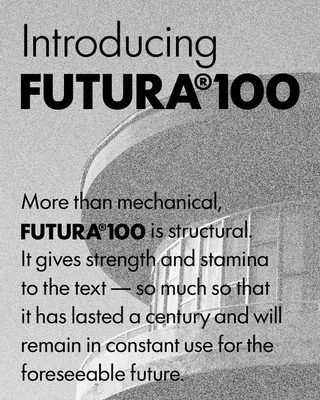
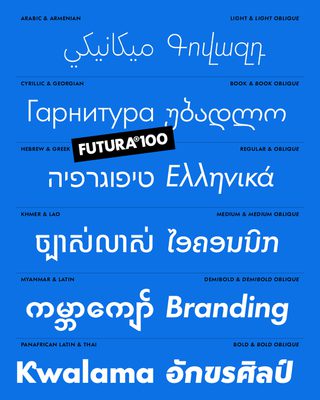
Poltik
Patrycja Walczak’s Poltik won the Gerard Unger Scholarship in 2023, drawing upon Polish design from the 1960s and 70s. In fact, the initial inspiration came from the numbers on a clock Patrycja found in her grandfather’s drawer. And while Poltik’s display cut is a joy to behold, its reversed contrast text weights are proving to be useful across a wide range of use cases. The family is ideal for branding, signage, and packaging, presenting and updating a retro vibe.
Sakkal Saad and Sakkal Saad Poster
Dr Mamoun Sakkal and Aida Sakkal’s Sakkal Saad font family was inspired by the expressive typography of Middle Eastern newspapers, magazines, and posters from the 1960s to 1980s, and captures the vibrancy and optimism of the era while adding a contemporary twist. Sakkal Saad and Sakkal Saad Poster also make extensive use of OpenType features, stylistic sets, and contextual alternates to provide graphic designers with a wealth of options for layouts.
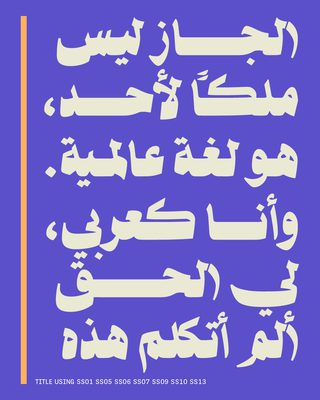
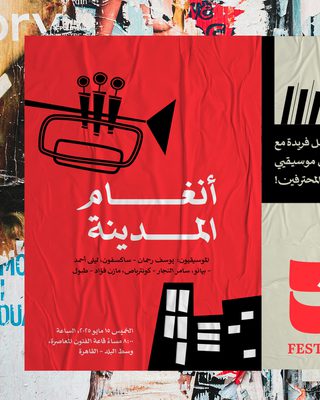
Primarium
We continued work on our Primarium project to map how handwriting is taught to students in countries around the world. 2025 saw the project publish an acclaimed book, an accompanying exhibition, as well as a number of awards for the project itself as well as the two type families that emerged from Primarium’s research (details on the awards below).
The book ‘Primarium: Handwriting education across cultures and continents,’ edited by Pooja Saxena and José Scaglione, was published in late June. In addition to providing a comprehensive overview of handwriting models in numerous countries, the 360-page book is sumptuously designed and printed. A few copies are available for purchase from our web store.
Veronika and José lecture at the HMCT Gallery.
We published a wide variety of educational articles, interviews, and other interesting pieces on our blog. Here are some highlights from 2025.
Interviews & articles
Many companies’ pain points are in licensing typefaces and in working with multiscript typography. In connection with our Futura®100 release, we explained our approach to type licensing, and how our Futura®100 release provides companies with consistent branding, reduced administrative burden, and predictable costs. We also made the case for the benefits of multiscript typography, especially for businesses seeking to expand beyond their own borders.
We also published interviews with 2024 Gerard Unger Scholarship winner Anne-Dauphine Borione about their winning Dargon type family, inspired by the world of fantasy. “I believe typography is a fantasy, an artistic endeavour, a universe in itself,” she says in the interview. “Type enhances my reality, it is a conduit for enchanting myself, a portal to realms yet unseen. One might see type as purely utilitarian; I see it as a powerful source of magic.” We couldn’t agree more.
We also published a fascinating interview with the New Zealand artist Anton Hart, who uses our Bree typeface to create sculptural totems that spell out messages. Hart’s work takes Bree into a tangible realm, and it’s inspiring to see our type used in this way.
The entire team at Vallfort Meeting 2025 (from left to right, top to bottm): Joanca, Yorlmar, Tom, Elena, Linda, Veronika and Tikki, José, Pooja, Josh, Agyei, Doug, Ando, Arnab, Pati, Xicheng, and Feli.
Type in use
What’s another word for thesaurus? One person who might know is George Frederick, the Experience Design VP for dictionary.com. They chose our LFT Etica typeface for the website’s rebrand. He goes into detail about the rebrand process in the interview, and also had this to say: “The next-level quality of the typefaces plus the value of TypeTogether’s partnership are well worth the cost.” This put some crimson in our cheeks.
So as you can see, 2025 was a very productive and successful year for us, and we’re truly thankful for all of the opportunities we have received. We firmly believe the best is yet to come, and with projects on the horizon such as the release of the second half of Futura®100, Dargon, and many more projects, it’s easy to see why. If there is a throughline running through all of our activities, it is summed up by our motto: Care for Characters.